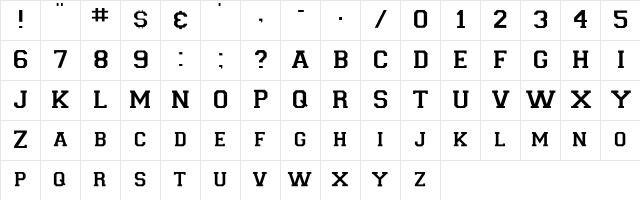
CollegiateInsideFLF Regular Font Preview
CollegiateInsideFLF Regular
CollegiateInsideFLF Regular Font Details
| Year | 1988 |
Design Context for CollegiateInsideFLF Typeface
CollegiateInsideFLF takes a measured approach to typography — its balanced proportions and neutral character make it a reliable workhorse for both digital and print work.